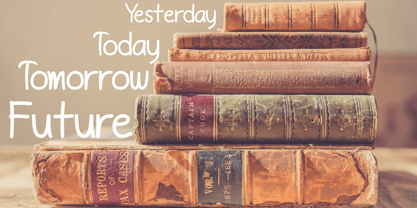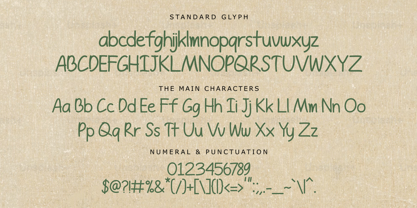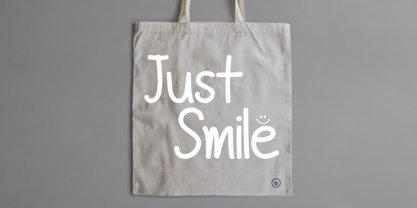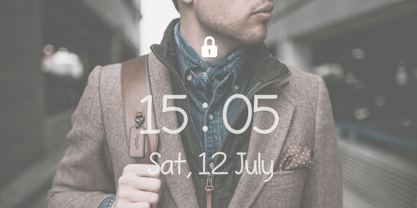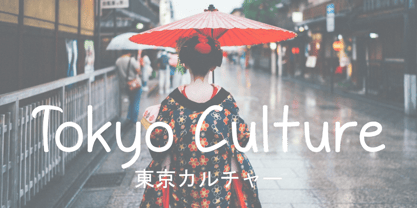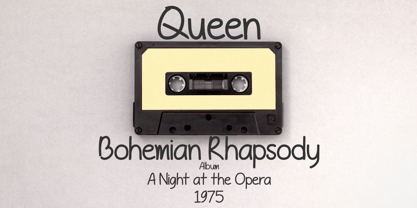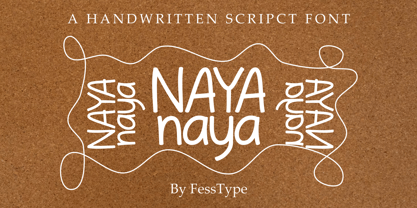
Naya
by FessType
The Naya Font Family was designed by Sofyan Nur Ngafiyat and published by FessType. Naya contains 1 styles. More about this family
Naya is a handwritten script font with a playful and casual vibe. It features simple yet bold strokes that create an organic and friendly look. The slightly curved letterforms give it a warm, approachable feel while keeping excellent readability.
This font is perfect for:
• Greeting cards and casual invitations
• Handmade or natural product branding
• Creative posters and motivational quotes
• Personal projects such as journals, scrapbooks, or social media designs
Designed by FessType, Naya combines the charm of natural handwriting with clear legibility, making it a versatile choice for various design needs.